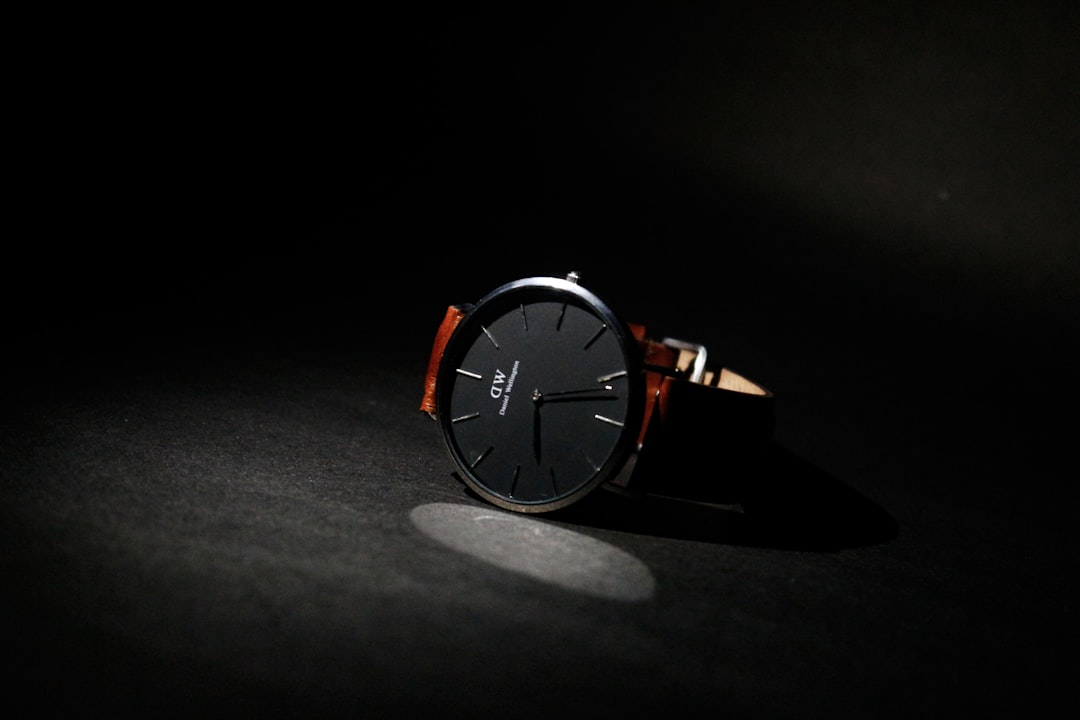
What Font Does Daniel Wellington Use?
Anyone searching the daniel wellington font is usually drawn to how effortlessly elegant the watch brand looks with so little ornament. As with the heritage-minded names in our famous brand fonts hub, the answer is a carefully chosen serif doing quiet, expensive-looking work. Below we cover the wordmark, the reported brand typeface, and the free serifs that get you closest to that minimalist-luxury feel.
What font is the Daniel Wellington logo?
The Daniel Wellington logo is a refined serif wordmark, typically set in spaced-out capitals. The letterforms show classic high contrast — thin hairlines against more defined stems — with elegant, tapered serifs that read as timeless and upmarket. The generous letter-spacing adds to the sense of calm luxury, giving the name room to breathe like an engraving on a watch face. It functions as custom brand lettering rather than an installable font, so any “Daniel Wellington font” download you find is an approximation, not the genuine mark.
What is Daniel Wellington’s brand typeface?
Daniel Wellington has not released an official type specimen, so the specifics here are hedged. Judging from the wordmark, website and campaign imagery, the identity centres on a high-contrast, classically proportioned serif — the style associated with refined fashion and luxury labels — frequently used in capitals with wide tracking. Supporting copy appears to pair that serif with a clean, neutral sans-serif for legibility. Consider the named faces below the closest match to that elegant, minimalist serif rather than a confirmed brand specification.
Free fonts that look like the Daniel Wellington font
The understated-luxury serif look is very reproducible with free fonts. The key ingredients are high stroke contrast, refined serifs and plenty of letter-spacing in headlines.
| Use case | Daniel Wellington uses | Free alternative |
| Logo / wordmark | Custom high-contrast serif, spaced caps (proprietary) | Cormorant Garamond (tracked out) |
| Headlines | Elegant classic serif | Playfair Display or EB Garamond |
| Body / UI | Clean neutral sans-serif | Inter or Lato |
Why does Daniel Wellington use this kind of type?
Daniel Wellington built its name on minimalist, classically styled watches at an accessible price, and its typography sells exactly that promise. A high-contrast serif feels heritage, refined and expensive — it borrows the visual language of established luxury houses without the price tag. The wide letter-spacing and capital styling reinforce a sense of restraint and good taste, while a neutral sans-serif keeps the practical text readable. The result is a brand that looks far more premium than its price point, which is precisely the impression a minimalist watch label wants to create.
Does Daniel Wellington use a serif font?
Yes. The brand’s wordmark is a refined, high-contrast serif, usually set in spaced-out capitals, which gives it a classic, luxury feel. Body text pairs that serif with a clean sans-serif. For a free match to the serif, Cormorant Garamond tracked out in capitals is the closest accessible option.
Is the Daniel Wellington font free to download?
No. The wordmark is custom, trademarked lettering with no official font file. To recreate the look legally, use free serifs such as Cormorant Garamond, EB Garamond or Playfair Display. These capture the elegant, minimalist-luxury character of the brand without infringing on the actual mark.
Why is the Daniel Wellington logo so widely spaced?
The wide letter-spacing is a deliberate luxury cue. Generous tracking makes a serif wordmark feel calm, refined and high-end, echoing engravings and classic fashion branding. It is a simple, effective way to signal premium positioning, and you can apply the same spacing to a free serif to mimic the effect.
What font pairs well for a Daniel Wellington look?
Pair an elegant serif such as Playfair Display or Cormorant Garamond for headlines with a clean sans-serif like Inter or Lato for body copy. This serif-plus-sans structure keeps the identity luxurious where it counts while staying perfectly readable in longer text and on screens.
How does Daniel Wellington’s type compare to eyewear brands?
Like Warby Parker’s font, Daniel Wellington leads with a serif to feel refined and editorial. The shared serif strategy shows how minimalist accessory brands across categories use classic letterforms to project taste and quiet luxury rather than loud branding.